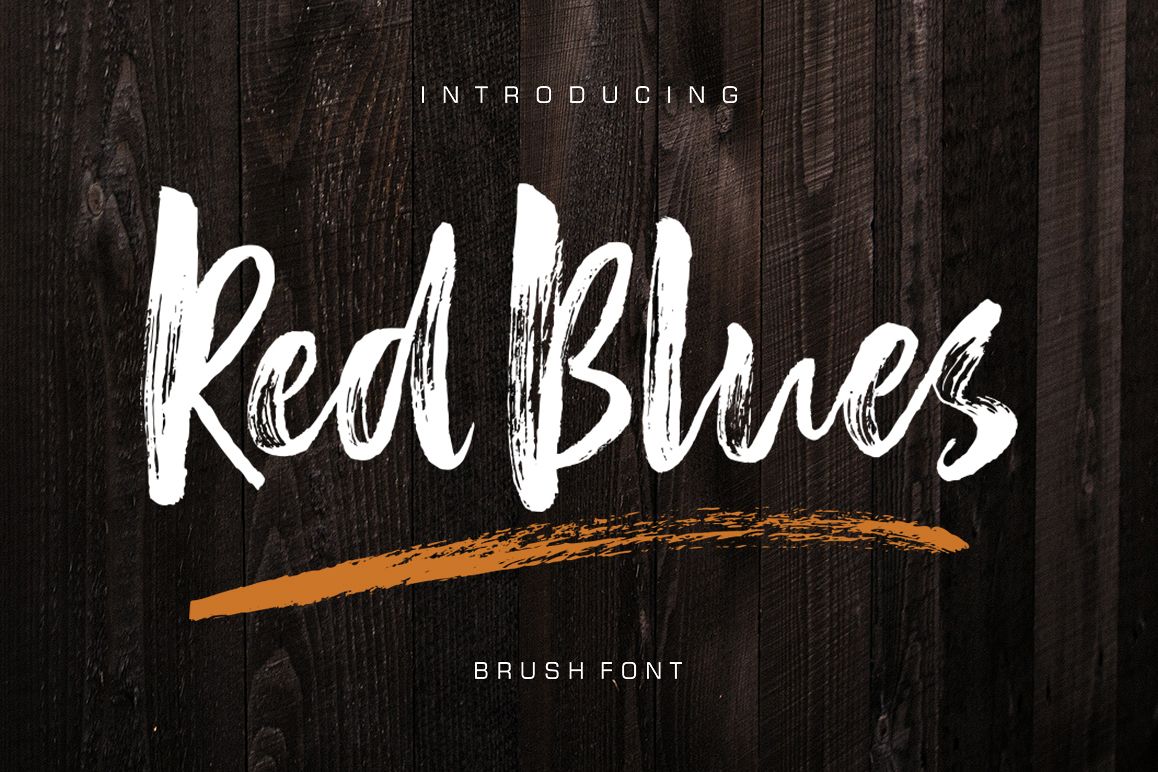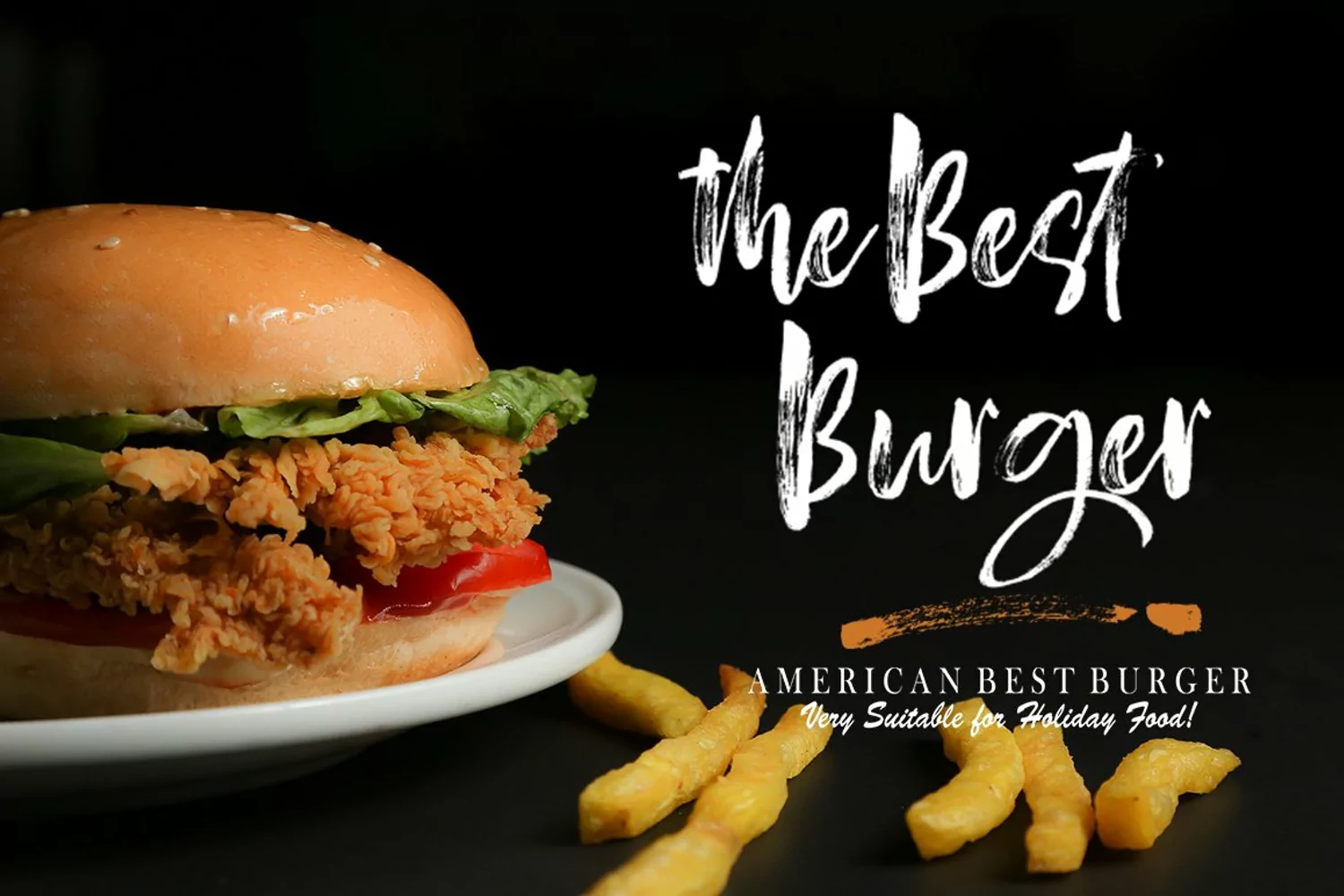
Red Blues is a new modern brush font with an irregular baseline. a contemporary approach to design, handmade natural, suitable for use in title design such as clothing, invitations, book titles, stationery designs, quotes, branding, logos, greeting cards, T-shirts, packaging designs, posters, and more.
Complete with uppercase and lowercase letters, as well as multi-language support, numbers, punctuation. also provide some ligatures and swash.
- Stylistic Alternate
- Standar Ligature